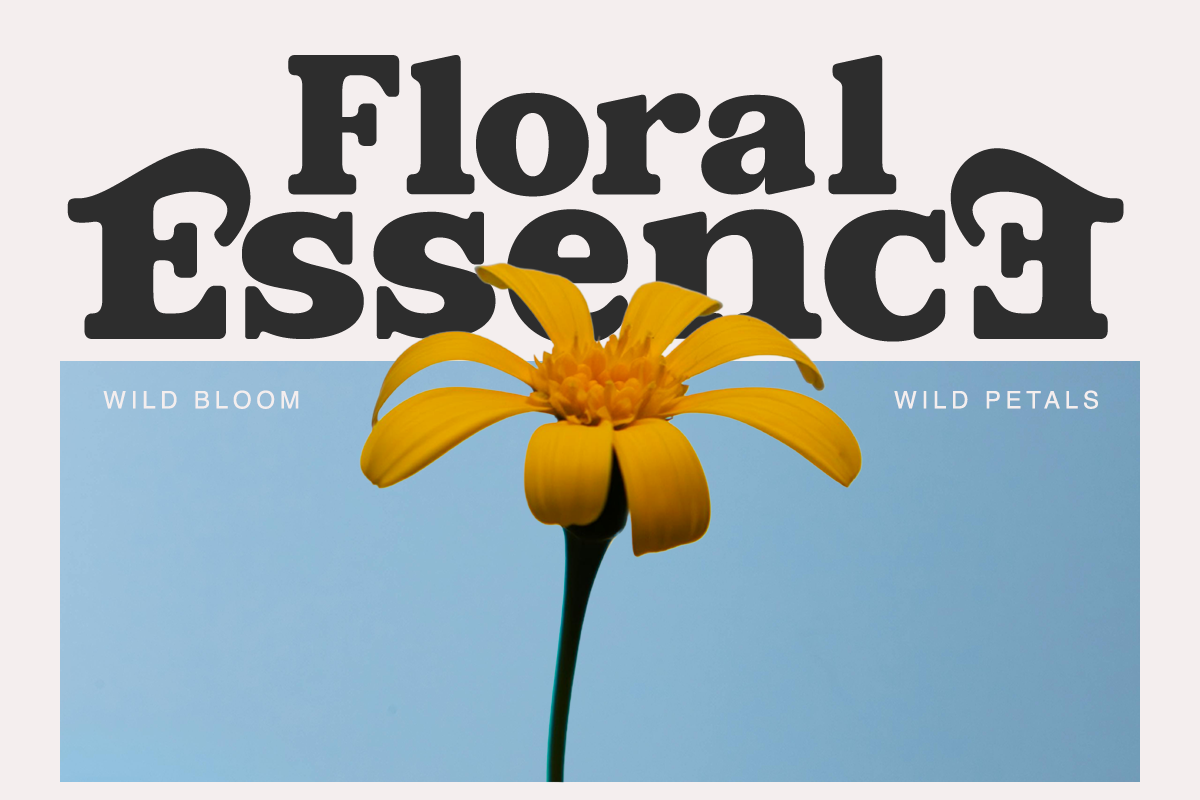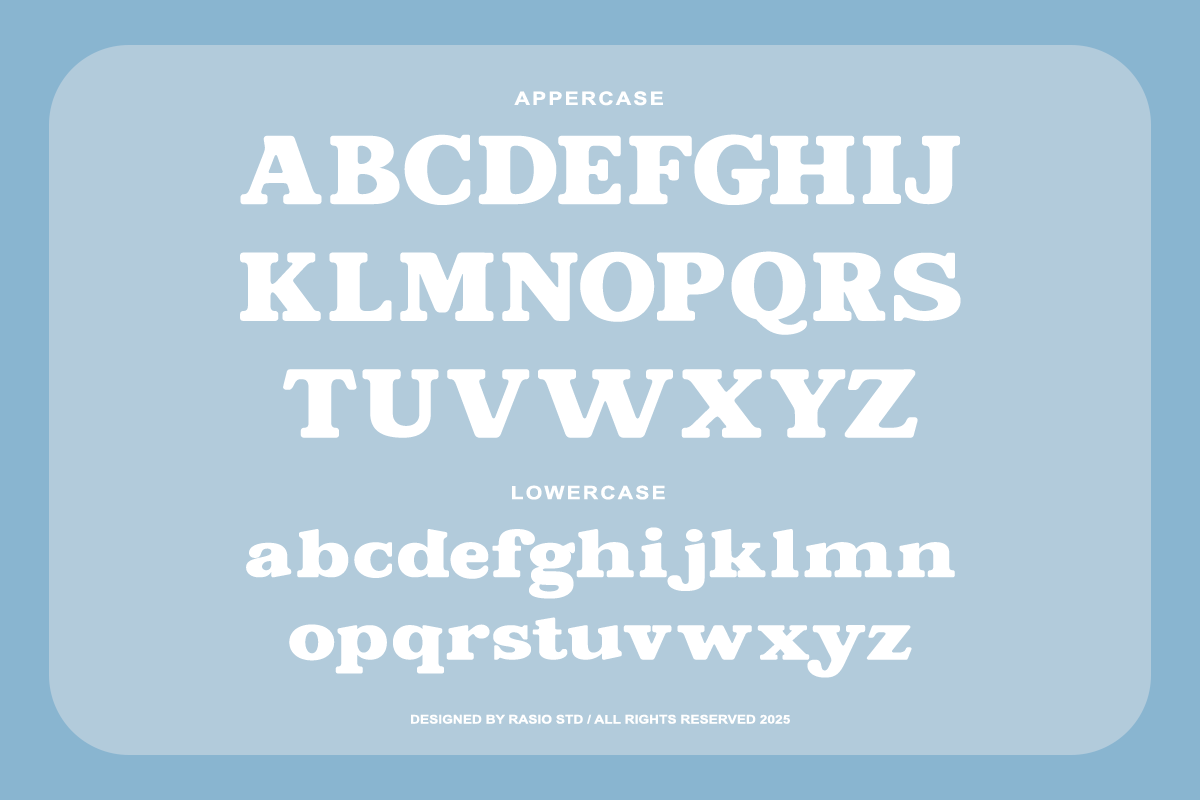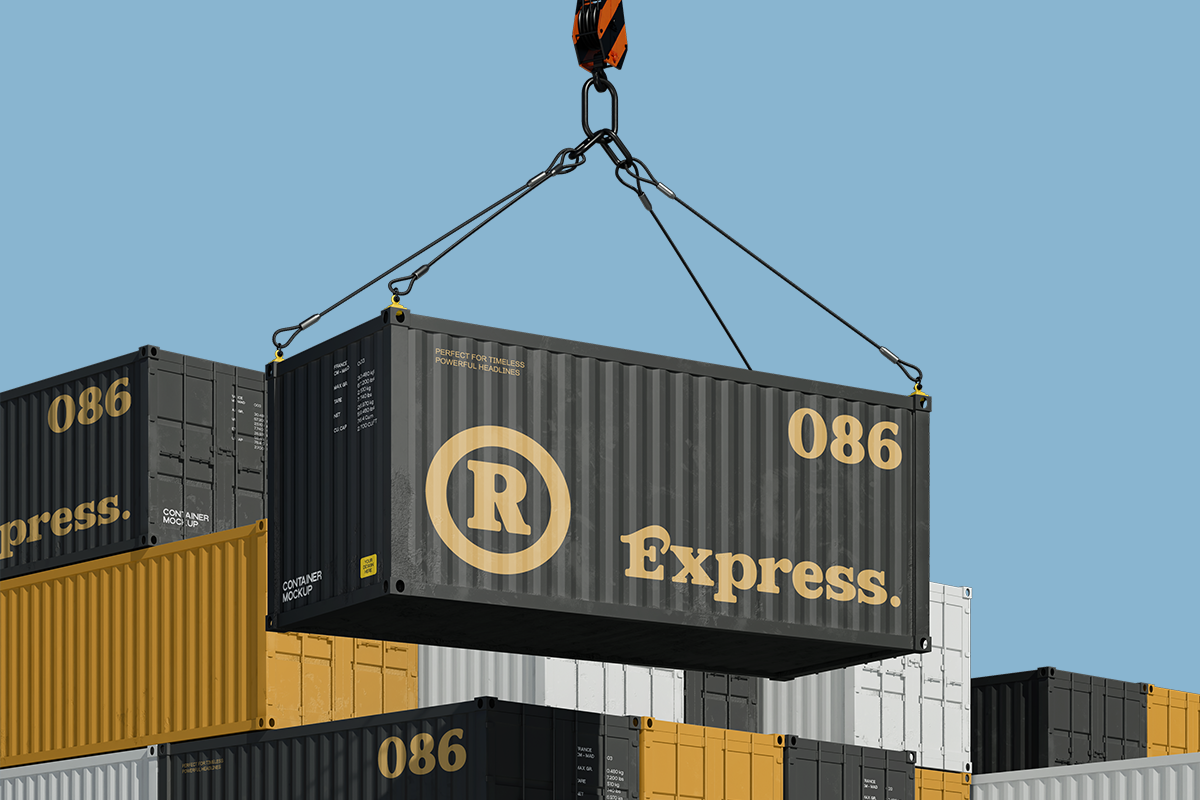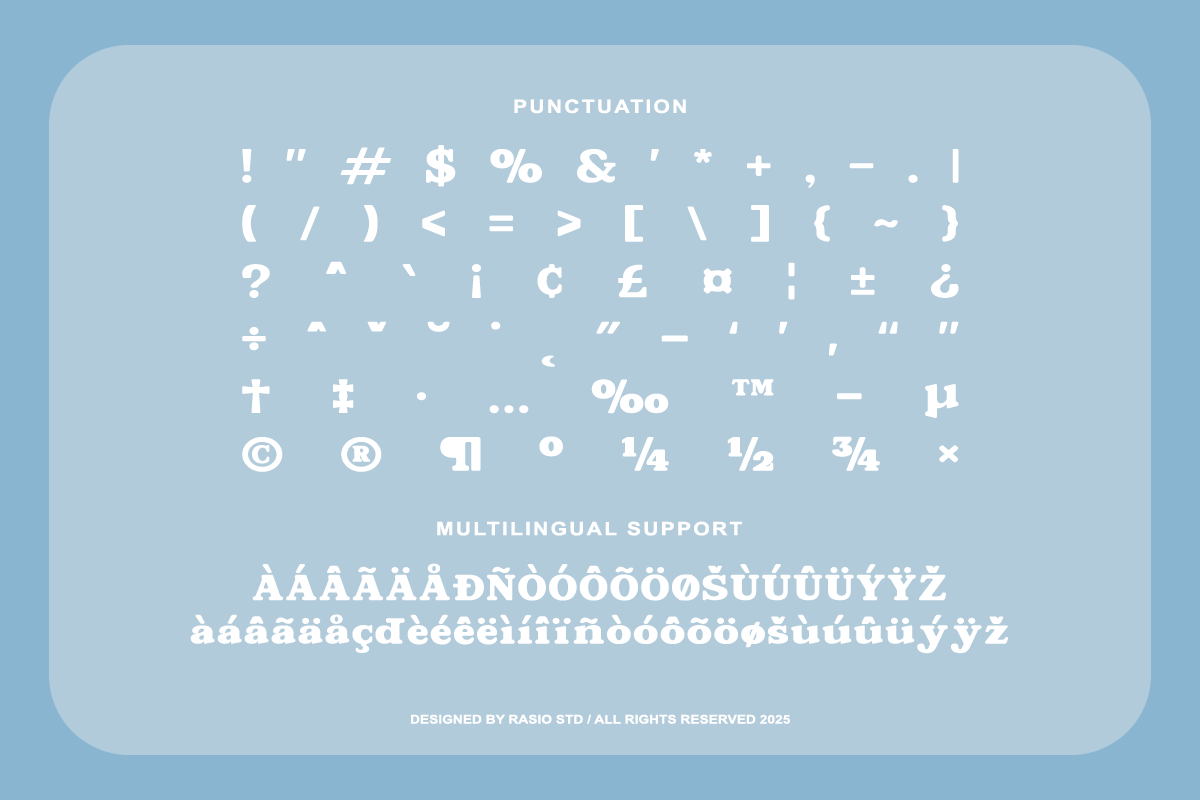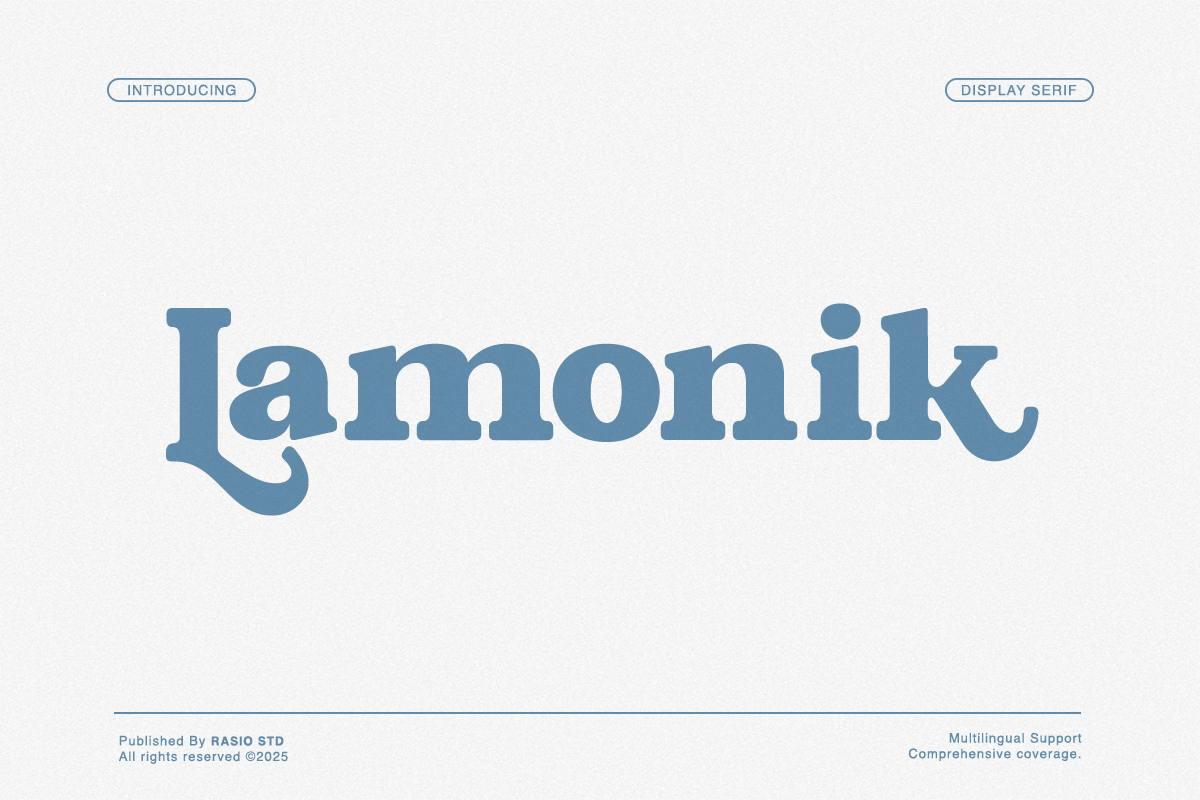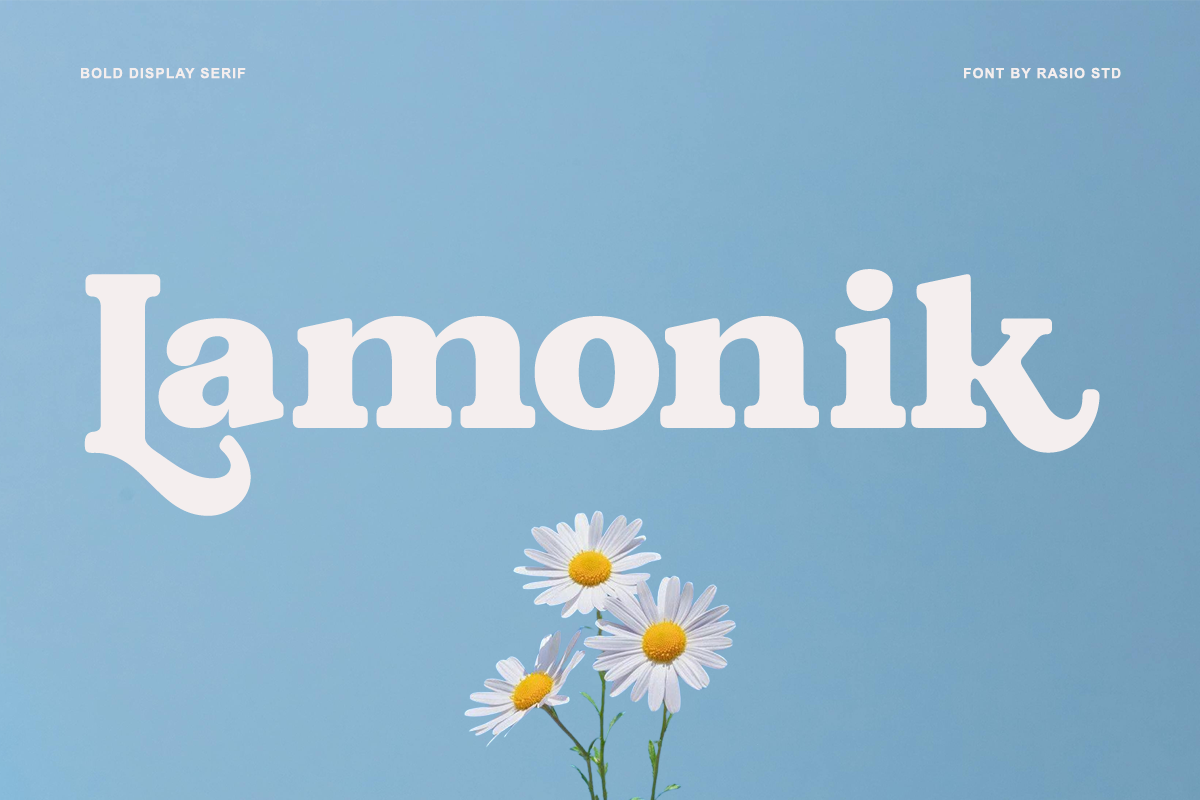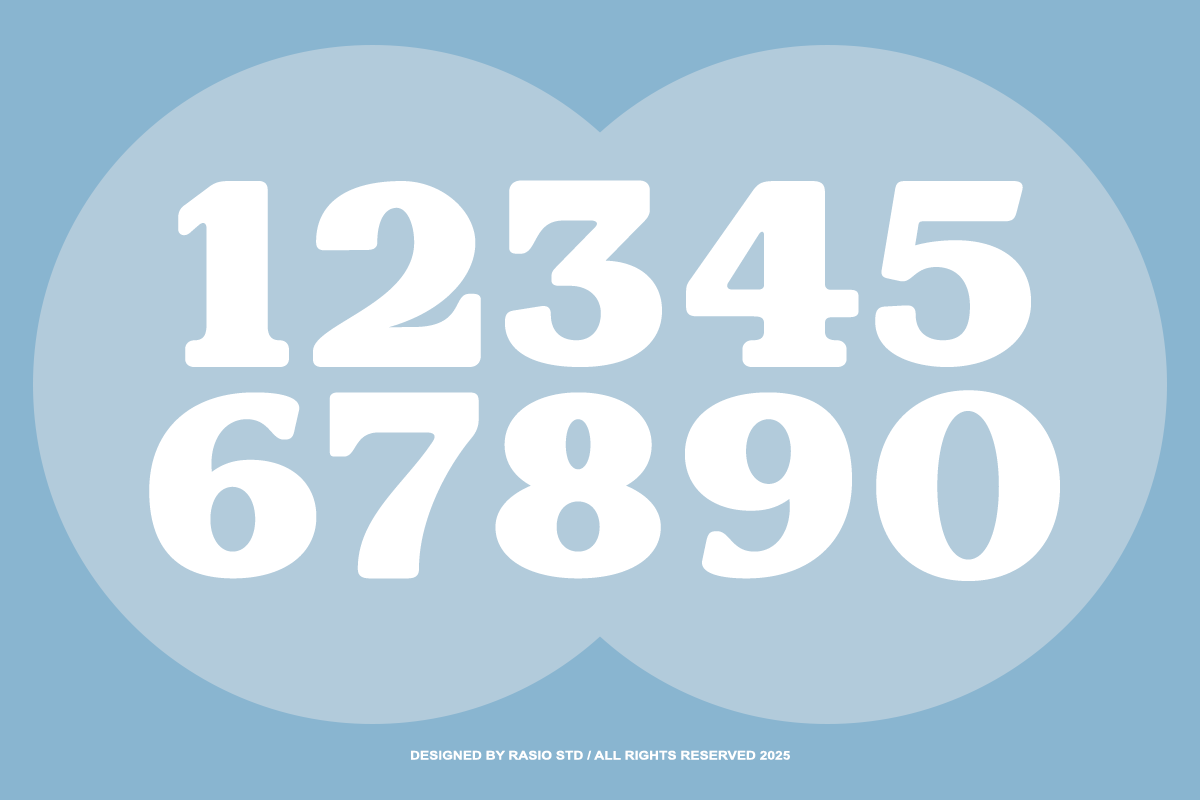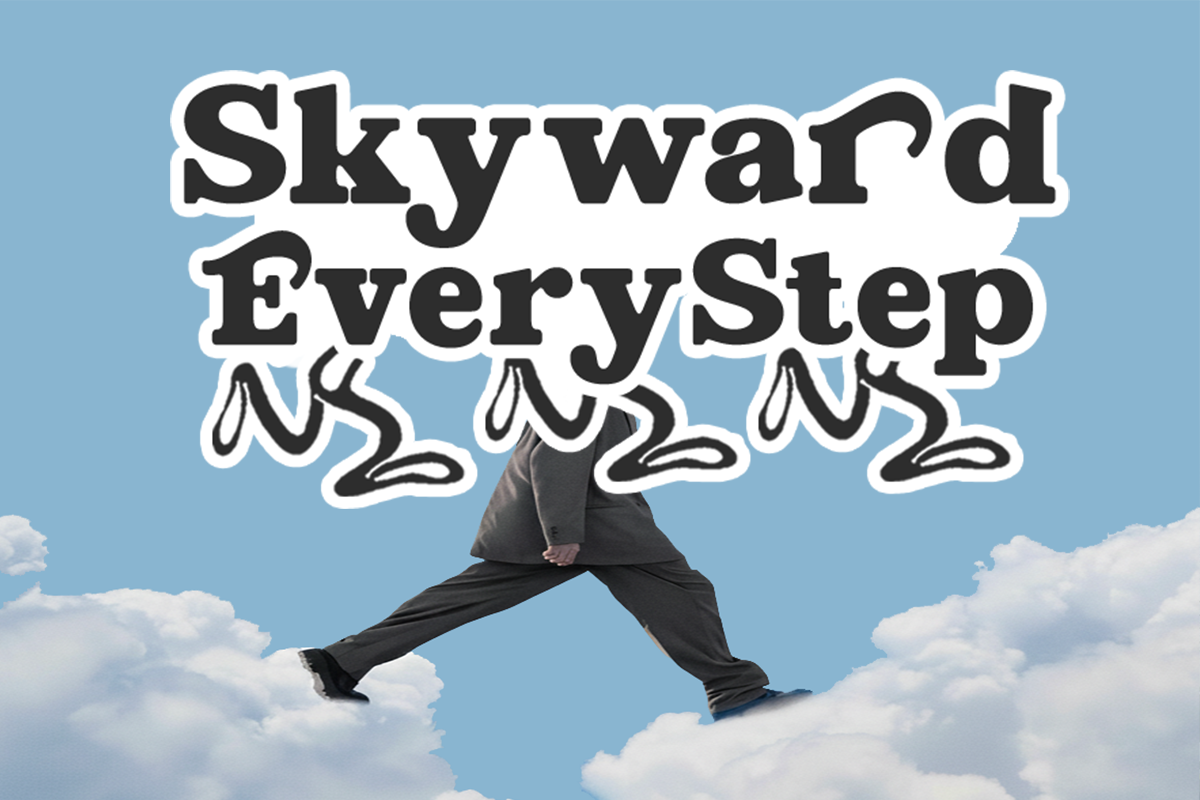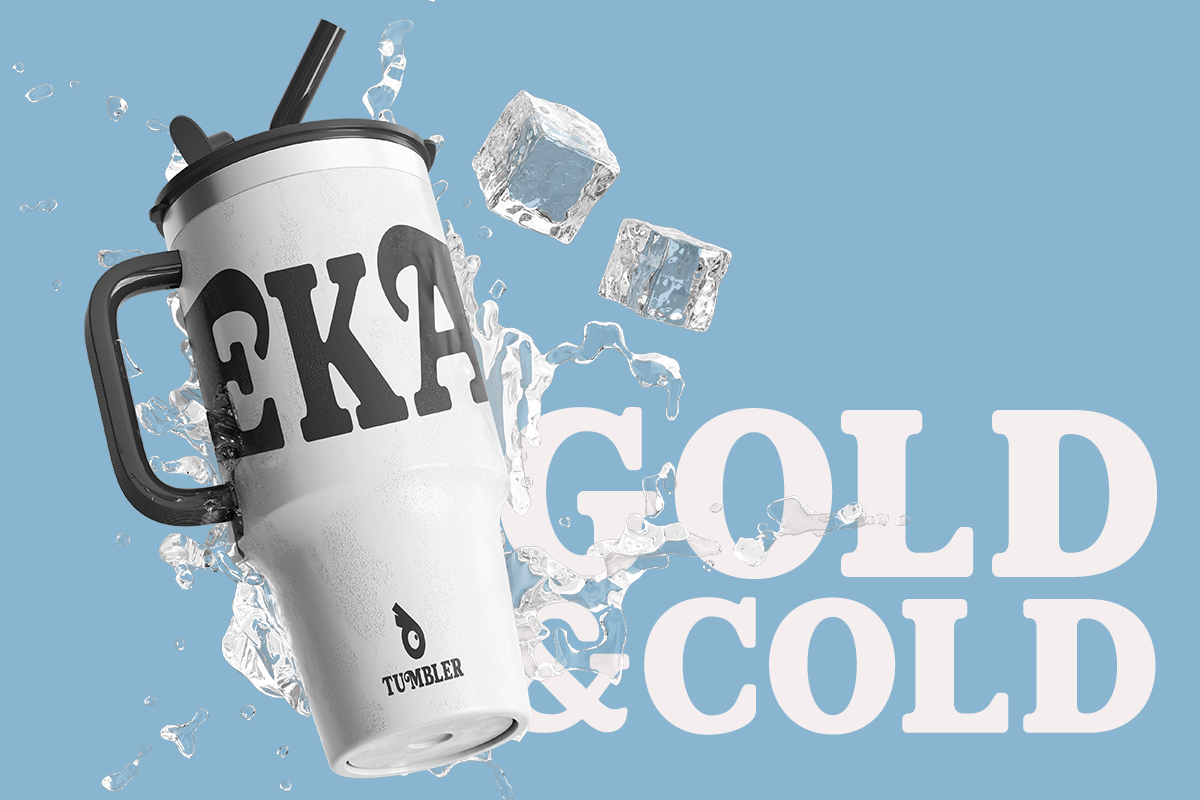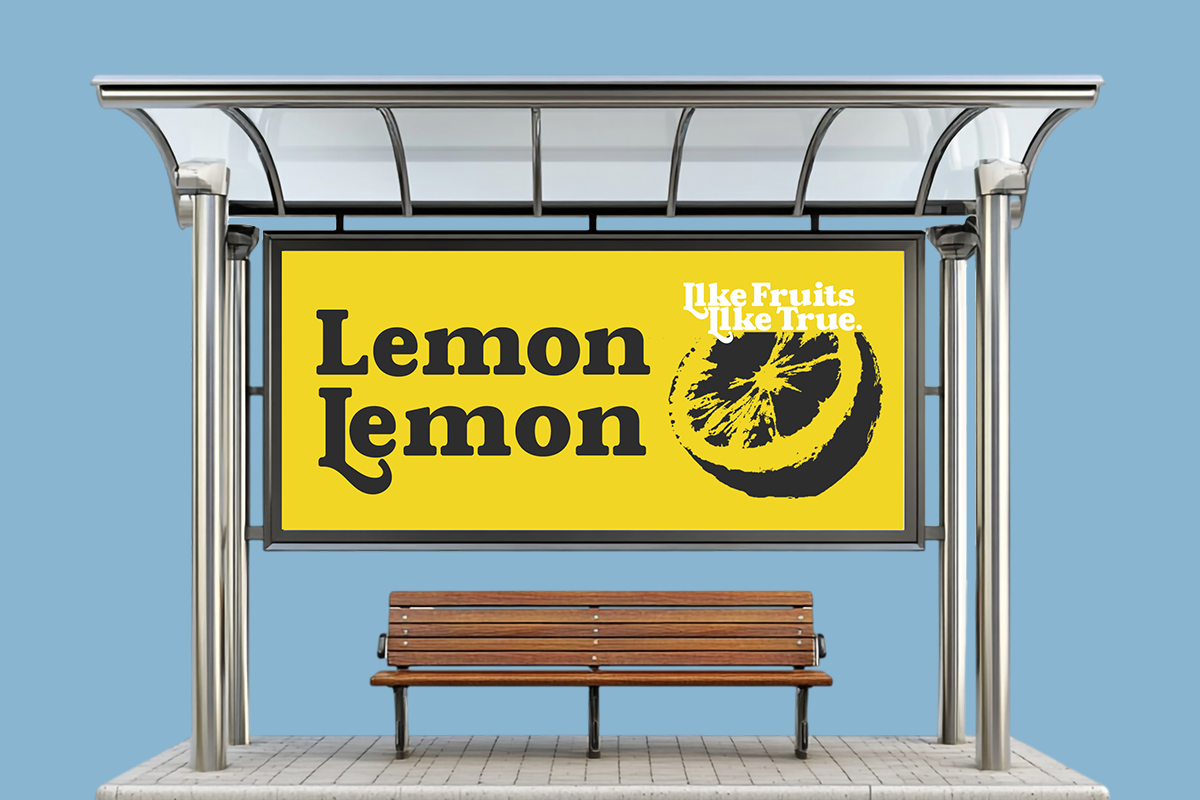
Lamonik Display Serif Font
Lamonik is a modern display serif typeface featuring bold rounded structures and soft vintage-inspired details. The letterforms combine strong slab-like serifs with smooth curves, creating a friendly yet confident typographic presence. Its balanced proportions and softened edges give the font a warm and approachable character while maintaining the bold impact needed for modern display typography.
Lamonik is designed for bold visual communication where personality and clarity are essential. Its rounded serif shapes make it highly effective for branding, logo design, poster titles, product packaging, advertising graphics, and social media visuals. The warm and approachable character also works well for lifestyle brands, creative studios, cafés, boutique businesses, and modern marketing campaigns that require expressive yet friendly display typography.
- Bold rounded serif structure that gives the typeface a friendly and confident display
- Soft curved terminals and smooth edges that create a warm and approachable character
- Balanced serif proportions inspired by vintage display typography aesthetics
- Thick consistent strokes that provide strong visual impact for headlines and branding
- Carefully crafted spacing that keeps the letterforms clear and readable
- Bold logo design and brand identity for modern lifestyle and creative brands
- Eye-catching poster headlines, advertising graphics, and promotional materials
- Product packaging for food, beverages, cafés, and boutique brands
- Social media graphics, marketing banners, and digital campaign visuals
- Merchandise design such as t-shirts, labels, stickers, and branding assets
Add a warm retro touch to your typography with Lamonik